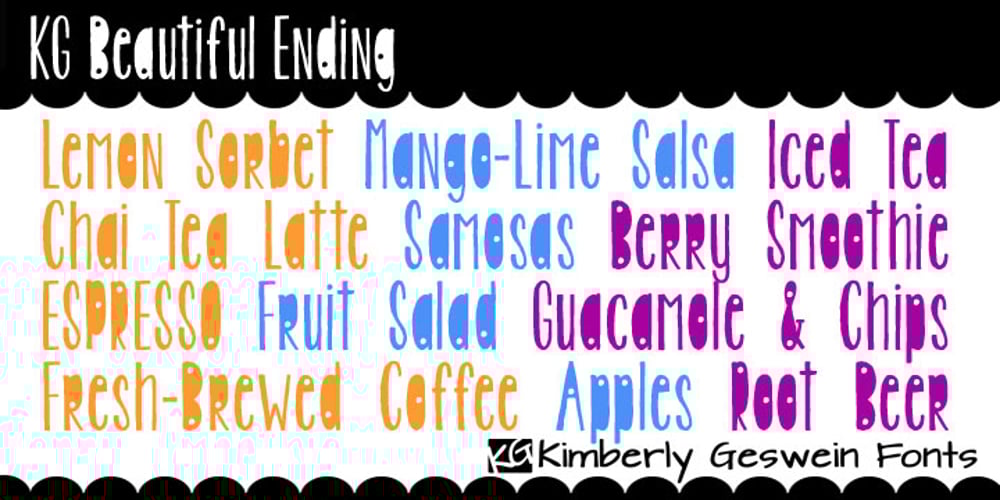
KG Beautiful Ending
KG Beautiful Ending font
KG Beautiful Ending Font Family was designed by Kimberly Geswein and published by Kimberly Geswein. KG Beautiful Ending contains 1 styles and family package options. This font was created by request and has a quirky tone that is playful and unique.